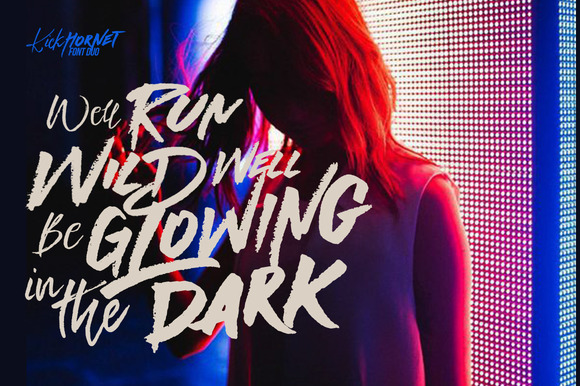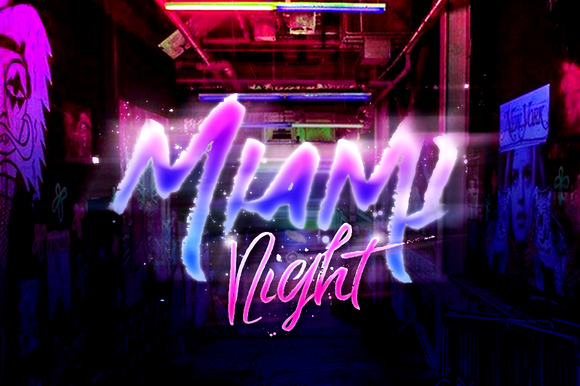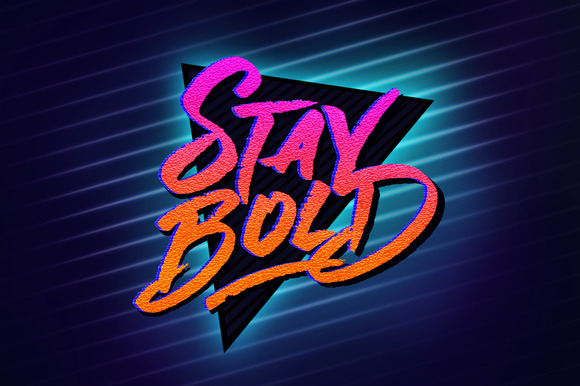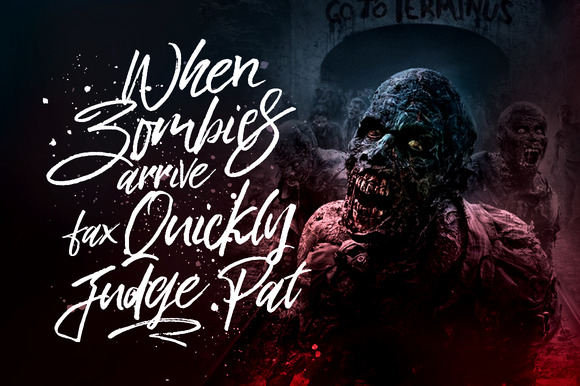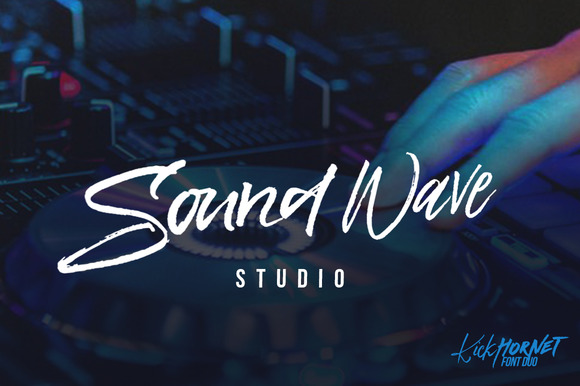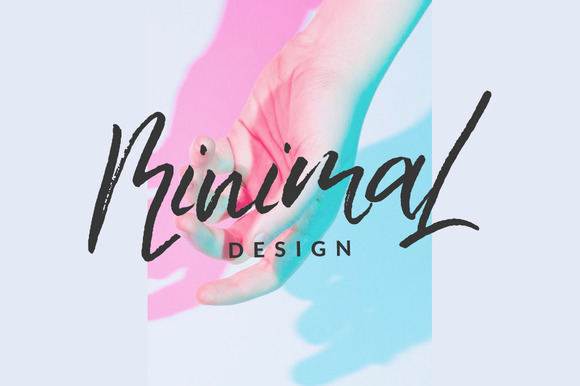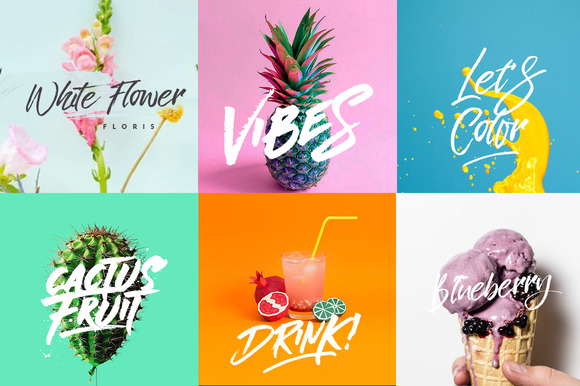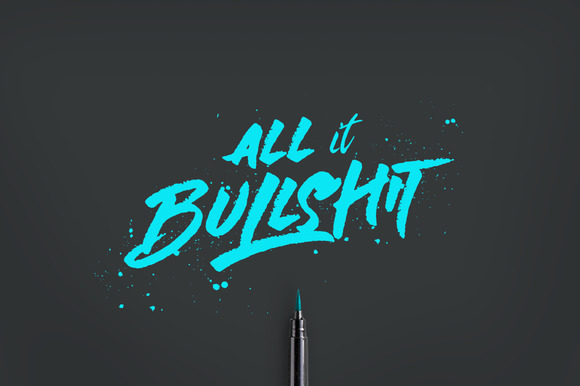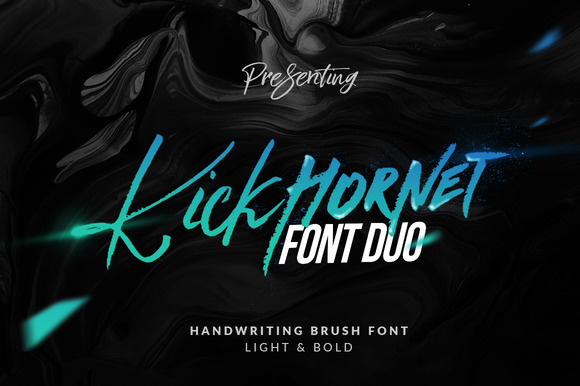
Introducing Kick Hornet handwriting brush with some combination of style Street and LifeStyle. Wild hand and imperfect flow give the natural looks.
You can used Kick Hornet for making a bold statement in professional branding, advertising, poster design, book covers, magazines, greeting cards, merchandise, fashion campaigns, newsletters, album covers, and quote designs and more.